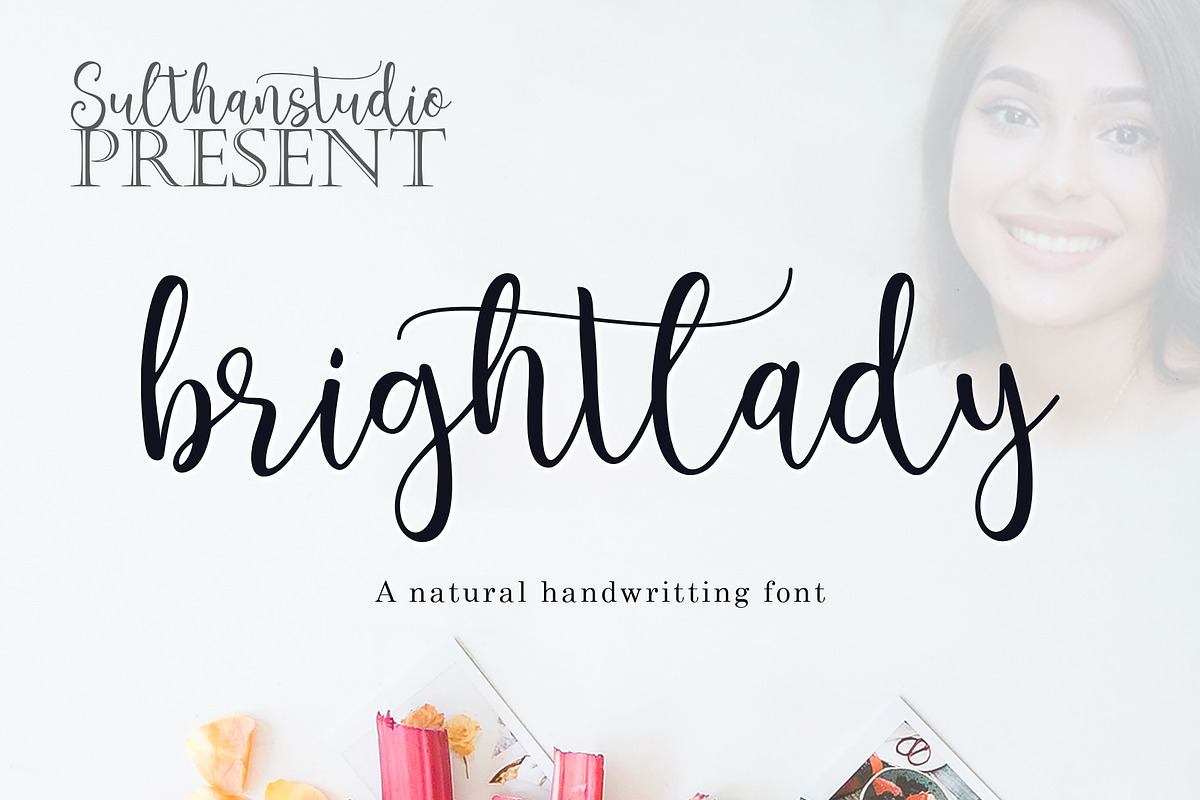
Brightlady Font Free Download is a stylish and elegant handwritten script typeface that combines sophistication with a friendly, personal touch. Its flowing, fluid letterforms make it perfect for wedding invitations, branding, social media graphics, and projects that need a touch of refined charm.
Brightlady’s graceful curves and delicate details give it a polished yet approachable feel, making it ideal for both formal and casual design applications. Whether you're designing for an upscale event or creating a custom logo, this font will add beauty and elegance to your project.